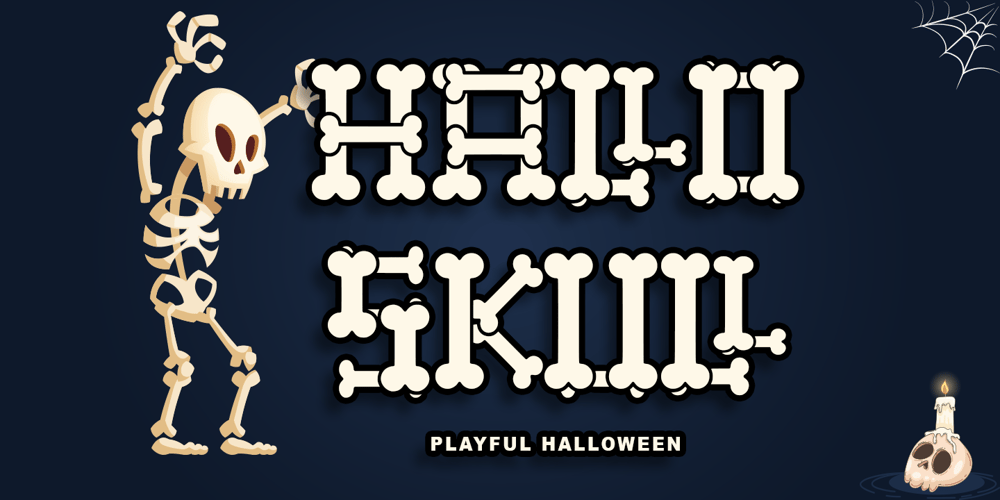
Hallo Skull Font Family was designed by Thomas Aradea and published by Letterara. Hallo Skull contains 1 styles and family package options. Hallo Skull is a fun friendly and spooky display font. It is suitable for each of your party designs or Halloween creation. Add it to your creative Halloween-themed ideas and notice how it makes them stand out! This font is PUA encoded which means you can access all of the glyphs.